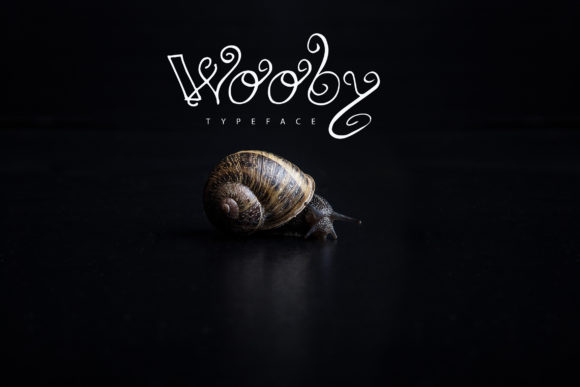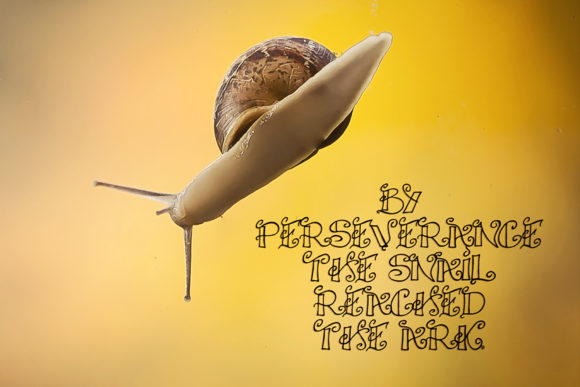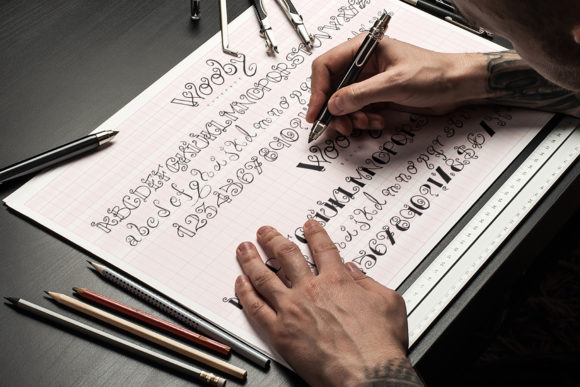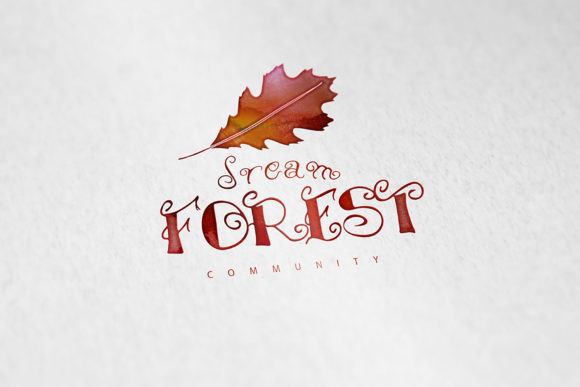
HomeScript FontsWooby Font Script Fonts Wooby Font FacebookXPinterestWhatsApp Wooby Font Poster 2 Wooby Font Poster 3 Wooby Font Poster 4 About Wooby Font The Wooby Black is a handmade typeface. It has its own personality which will add a fun feel to your designs. DOWNLOAD ON CREATIVE FABRICAThis font is sold and delivered by Creative Fabrica. Font Canyon may earn a commission if you buy through this link. People also explored Qolam Black Font Hello Junita Font Realistic Mock-ups on Vintage Background Natural Wildflower Font Panamera Font Replune Font Mikeny Font Leighote Font Homestay Font 300 0 TagsWooby Font Previous articleBlack Hawk FontNext articleShandala Font LEAVE A REPLY Cancel reply Comment: Please enter your comment! Name:* Please enter your name here Email:* You have entered an incorrect email address! Please enter your email address here Website: Save my name, email, and website in this browser for the next time I comment. Personal Use Free Eits Personal Use Free Read more about this font Machine House Personal Use Free Read more about this font Bonhomie Personal Use Free Read more about this font Glosery Personal Use Free Read more about this font BLOG Free Fonts Risk: Why Free Fonts Can Be Dangerous for Designers Free Fonts Risk: Why Free Fonts Can Be Dangerous for Designers Using free fonts is a common practice in web and graphic design. However, the... Exploring Font Trends Elegant Wedding Invitation Fonts – Handwritten & Script Fonts Best Fonts for T-Shirt Design – Top 2025 Picks